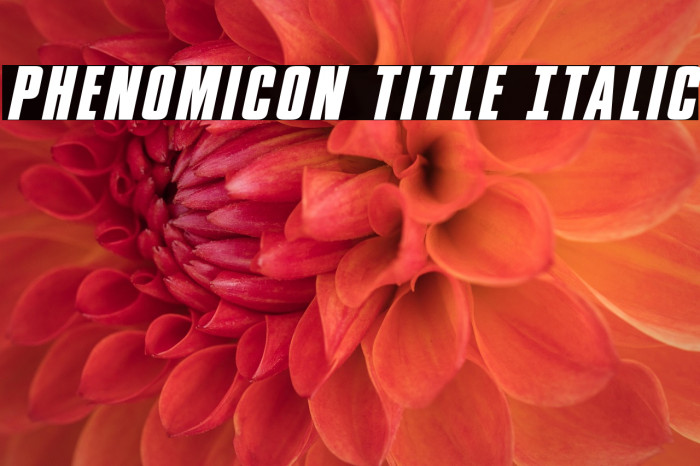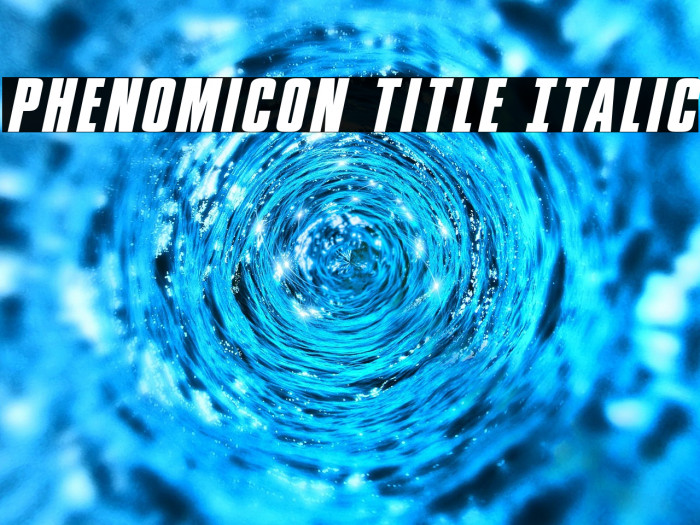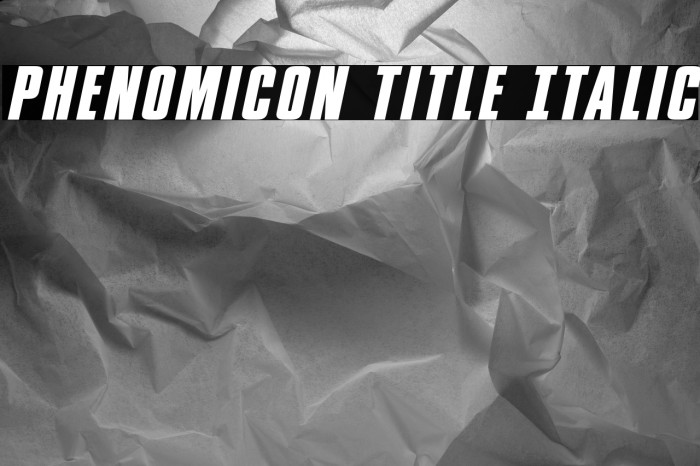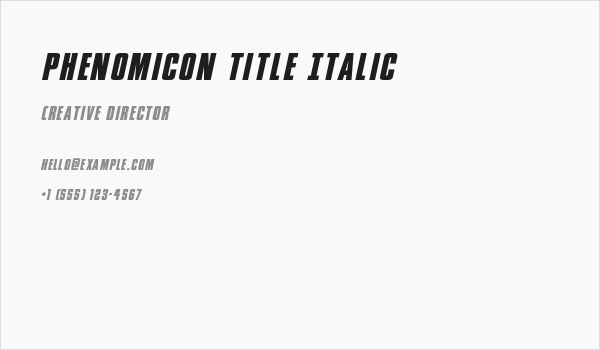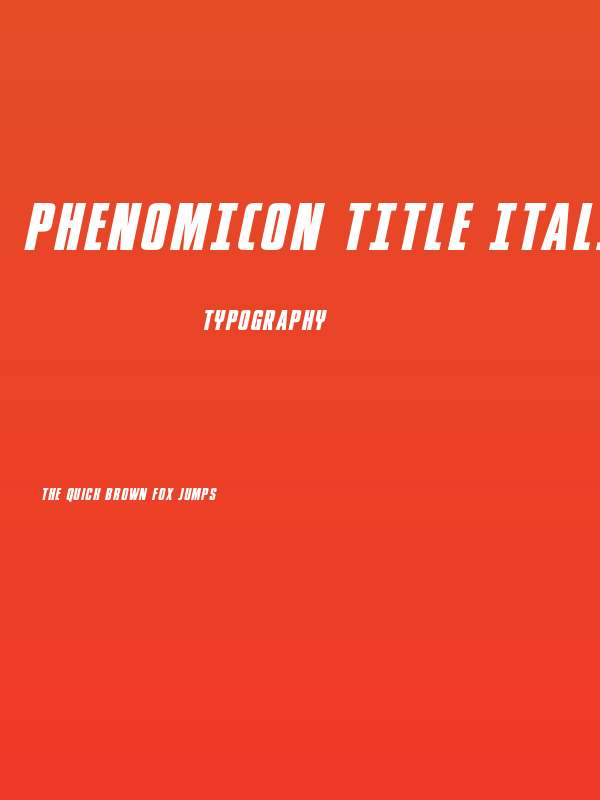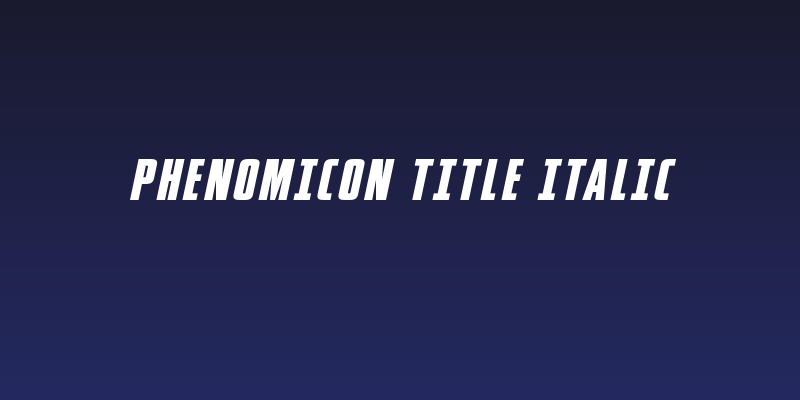
Phenomicon Title Italic Font
Phenomicon Title Italic Description
This font features a bold and dynamic italic style with an assertive presence. The characters are sharply angled, giving a sense of motion and energy. The uppercase letters are particularly striking, with a strong slant that enhances their boldness. The numbers and special characters maintain this energetic style, making them suitable for attention-grabbing designs. The overall appearance is modern and impactful, ideal for projects that require a strong visual statement.
| Proposed Projects | Ideal for sports branding, dynamic posters, and eye-catching headlines. |